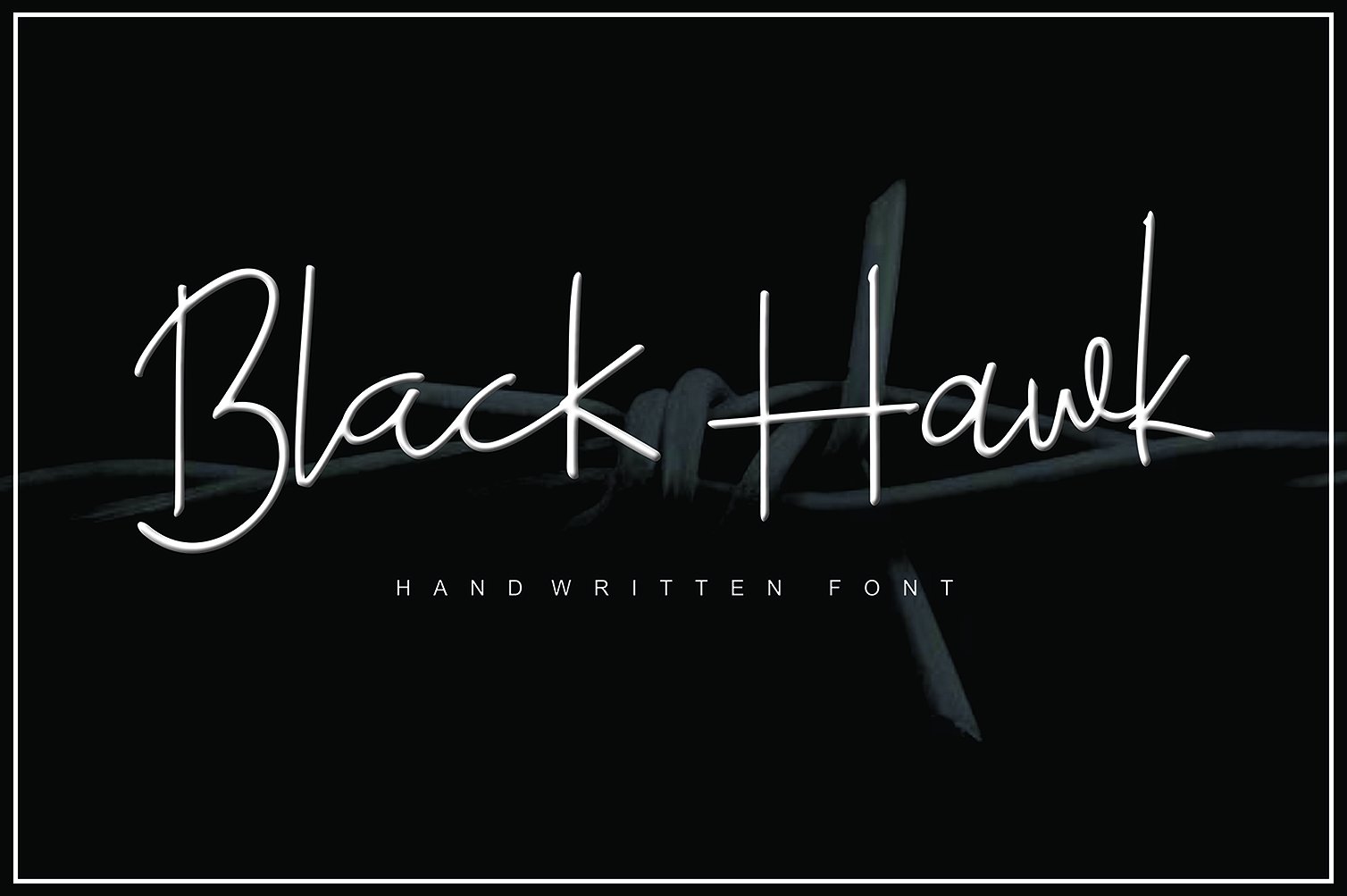
Black Hawk
Black Hawk Handwritten Font
Introducing the new handwritten stylish fonts Black Hawk, perfect for creating authentic hand-lettered text with a dancing baseline, classic and elegant touch.